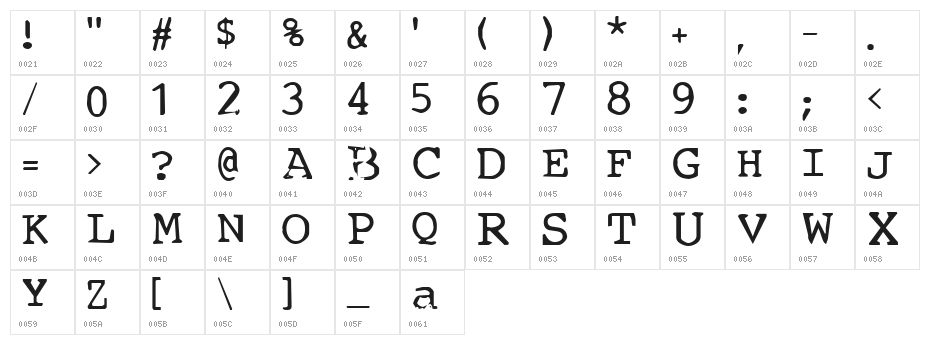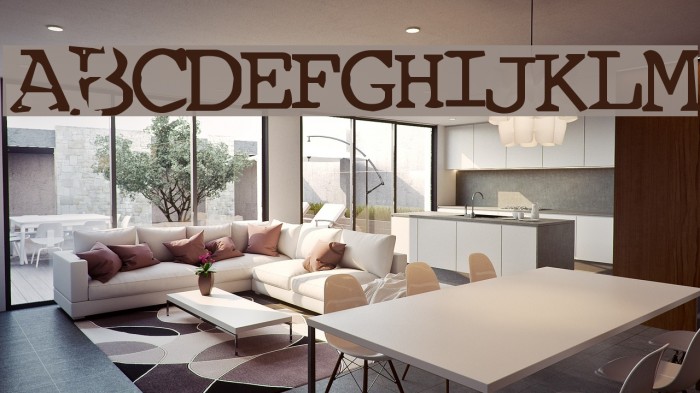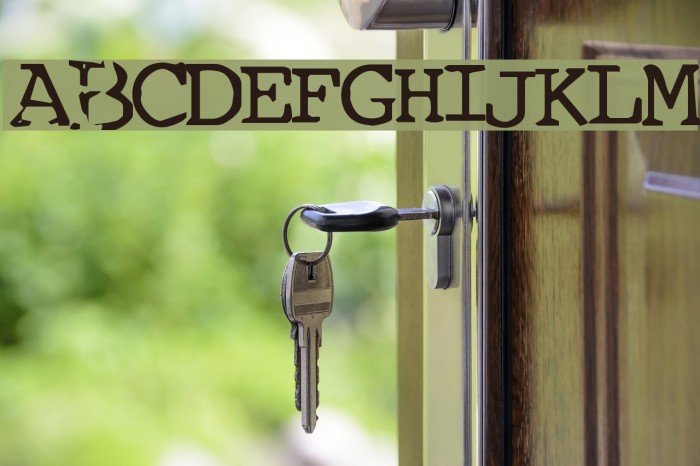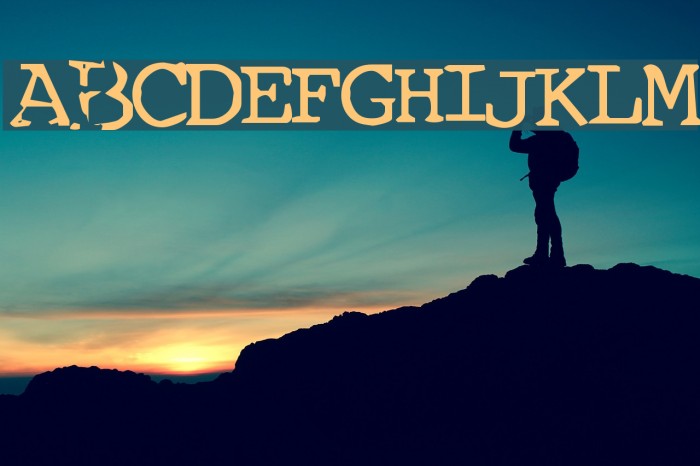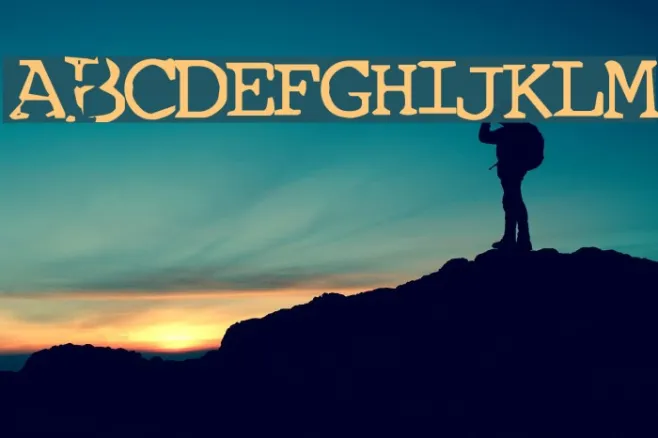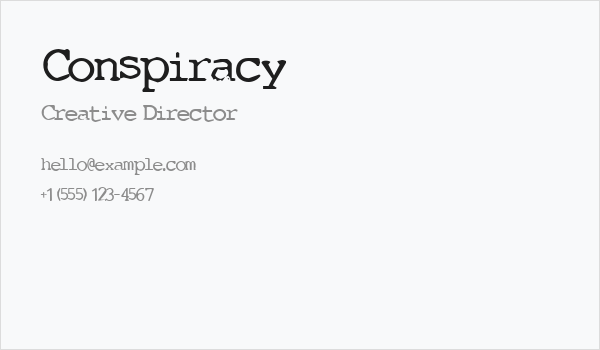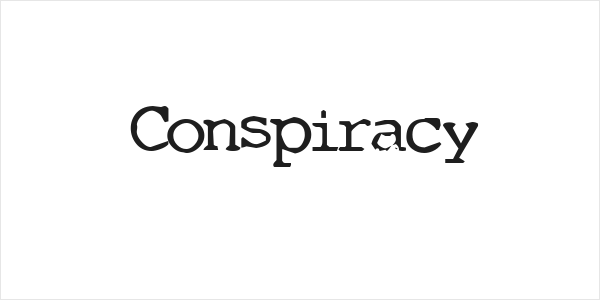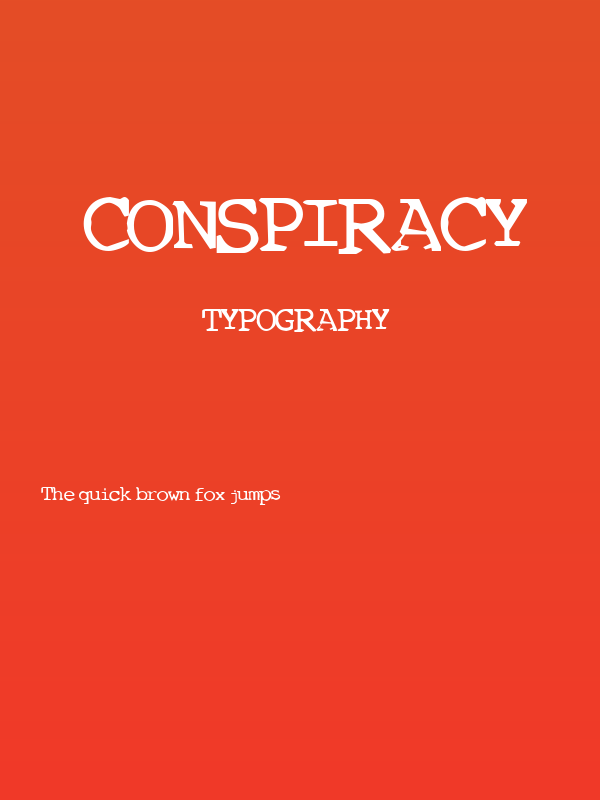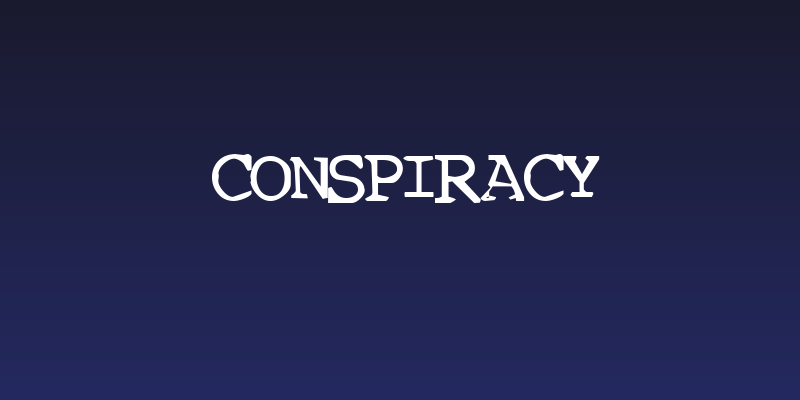
Conspiracy Font
Conspiracy Description
This font features a unique and playful design with a slightly distressed appearance, giving it a vintage and quirky feel. The uppercase letters are bold and have a distinct, uneven stroke that adds character and charm. The lowercase letters maintain a consistent style, with rounded edges and a slightly irregular baseline, enhancing the font's whimsical nature. Numbers and special characters follow the same design principles, ensuring a cohesive look throughout. The overall style is reminiscent of retro or vintage typefaces, making it suitable for creative and artistic projects.
| Proposed Projects | Ideal for posters, album covers, branding, and any project seeking a retro or artistic flair. |